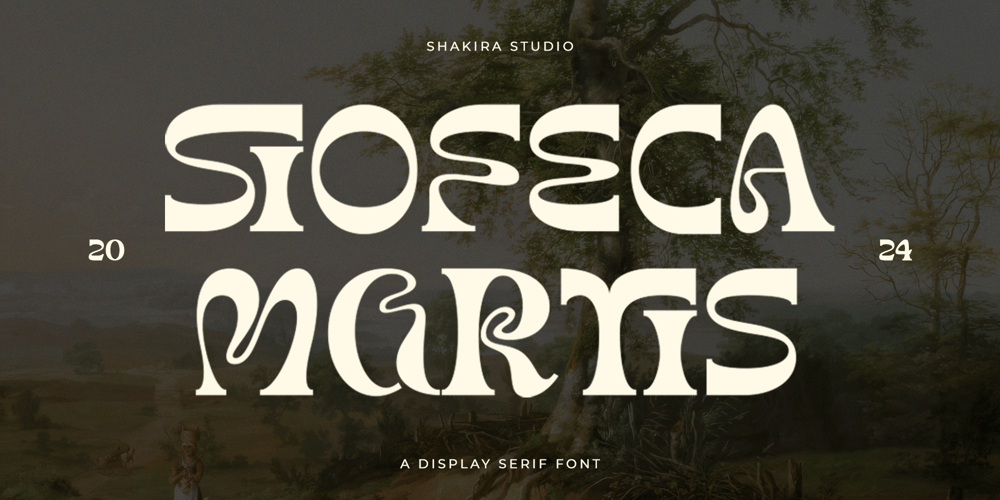
Siofeca Martis
Siofeca Martis font
Siofeca Martis Font Family was designed by Idhham Cholid Rikzano Yahya and published by Shakira Studio. Siofeca Martis contains 1 styles and family package options. Introducing Siofeca Martis – The Psychedelic Serif Display Font that Redefines Typography!Siofeca Martis isn’t your typical serif font; it’s a bold statement of creativity and innovation in the world of typography. With its psychedelic flair and striking display, Siofeca Martis embodies the essence of #SerifFonts and #TypographyTrends.Crafted for designers seeking to push the boundaries of traditional serif design, Siofeca Martis adds a touch of whimsy and intrigue to any project. Its unique characters and vibrant display make it perfect for logos, posters, album covers, and more.Join the trend towards bold and daring typography with Siofeca Martis. Elevate your designs and make a lasting impression with this mesmerizing serif font! #SiofecaMartis #PsychedelicSerif #DesignInnovationHere’s what you get: Regular All Multilingual symbol Opentype features ( ligature, alternate ) Accessible in the Adobe Illustrator, Adobe Photoshop, Adobe InDesign, even work on Microsoft Word. PUA Encoded Characters – Fully accessible without additional design software. Multilingual character supports : (Afrikaans, Albanian, Catalan, Croatian, Czech, Danish, Dutch, English, Estonian, Finnish, French, German, Hungarian, Icelandic, Italian, Lithuanian, Maltese, Norwegian, Polish, Portuguese, Slovenian, Spanish, Swedish, Turkish, Zulu)Follow my shop for upcoming updates, and for more of my workThank you!